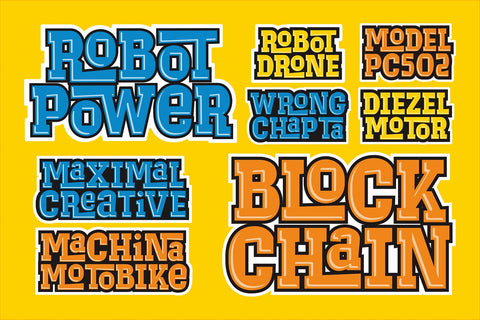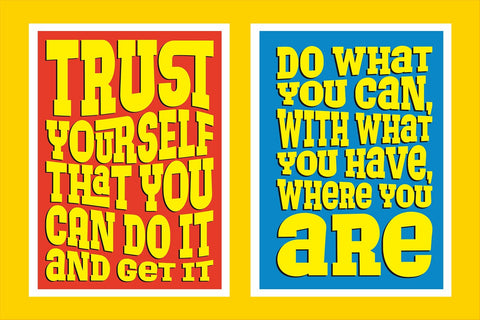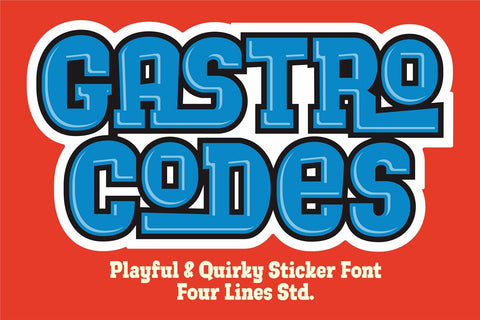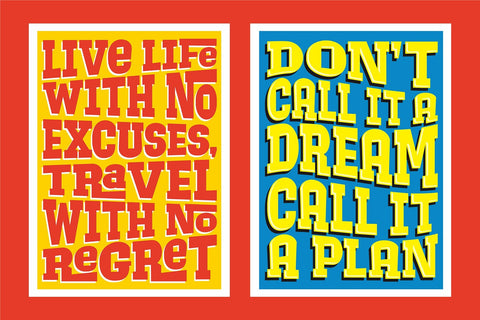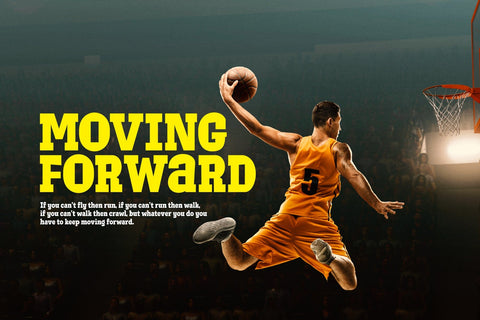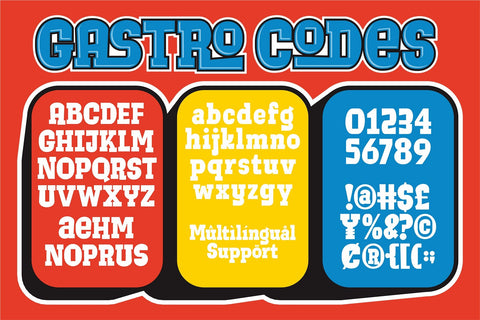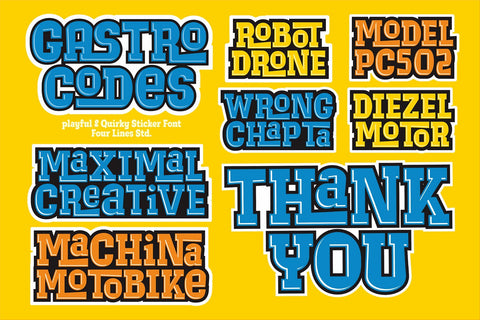
Gastro Codes - Playful Display Font
Gastro Codes that's designed to capture attention and add a touch of whimsy to your projects. Its robust, thick lines ensure that your message stands out, whether you're designing posters, banners, logos, sticker or any other project that needs to grab attention.